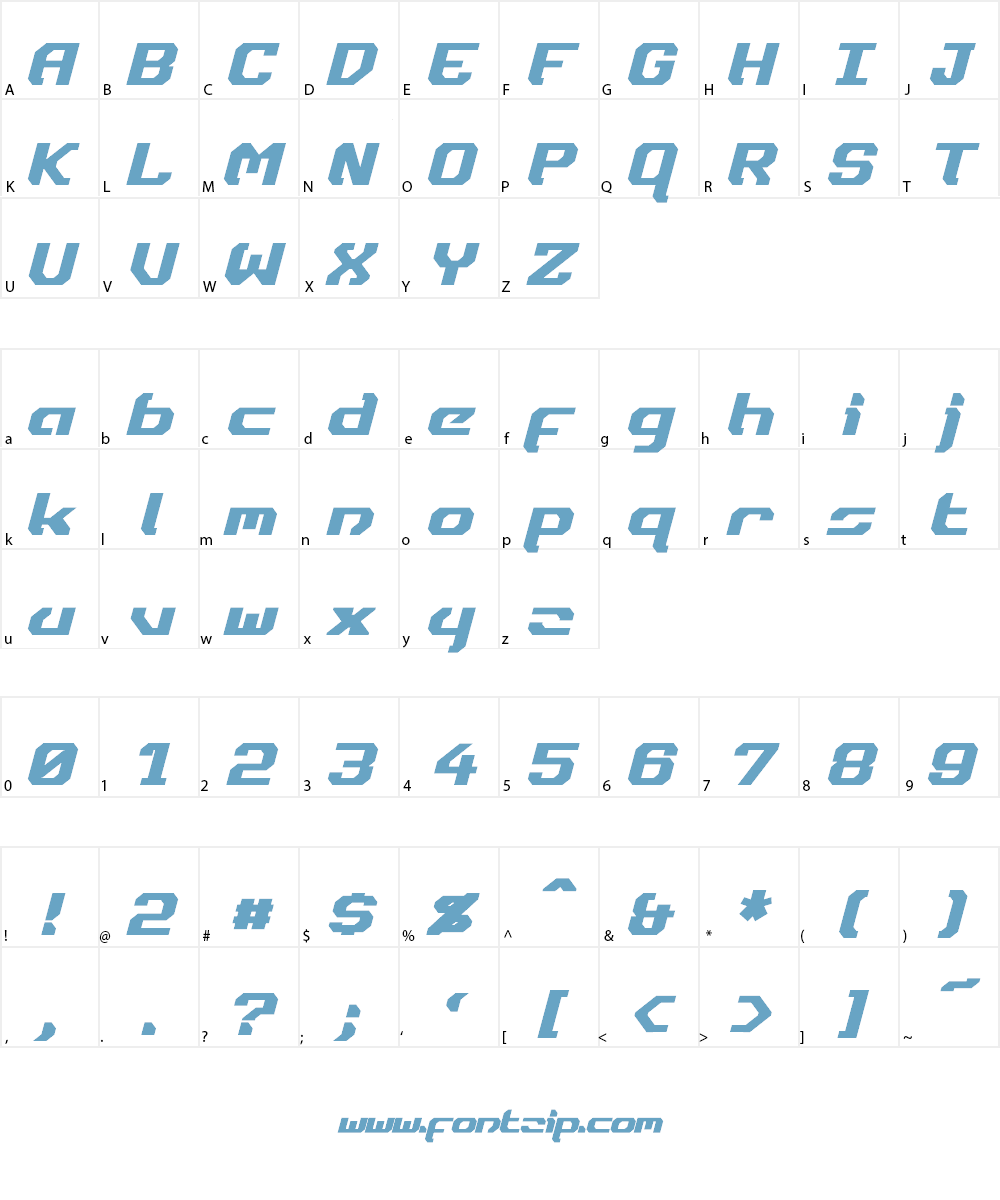
Dynotherm is a sharp-edged, angular typeface based on letting found on science-fiction marquees and magazines through the 1960s and 1970s. Includes full alphabet, extended punctuation, Euro. Includes bold and italic versions.